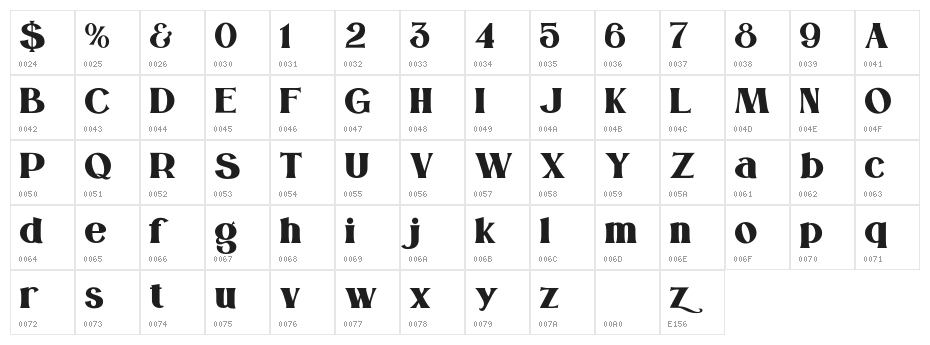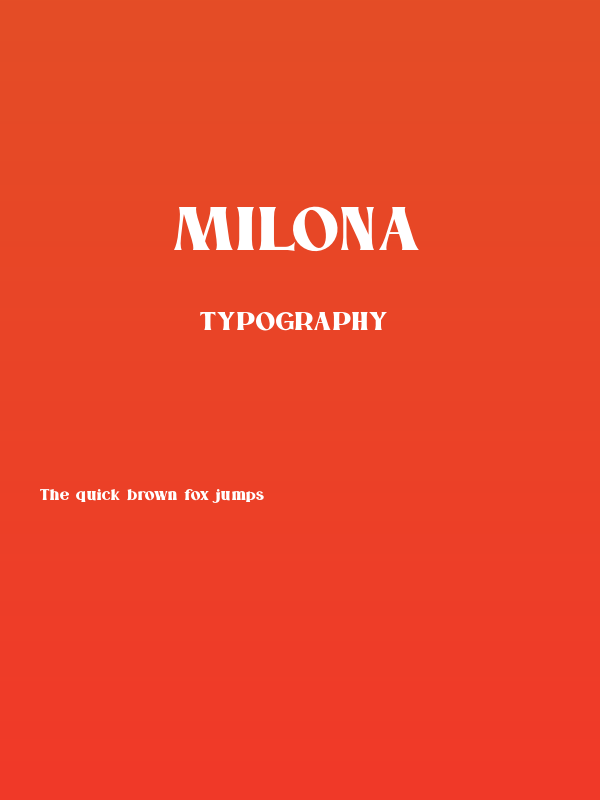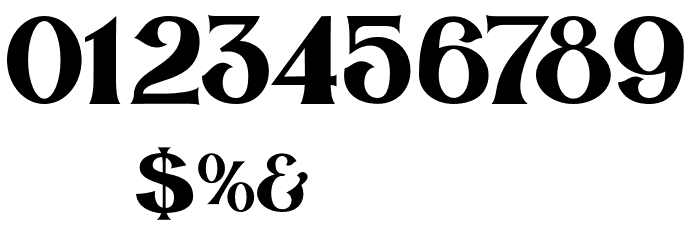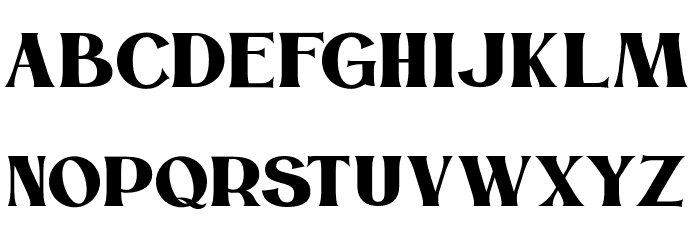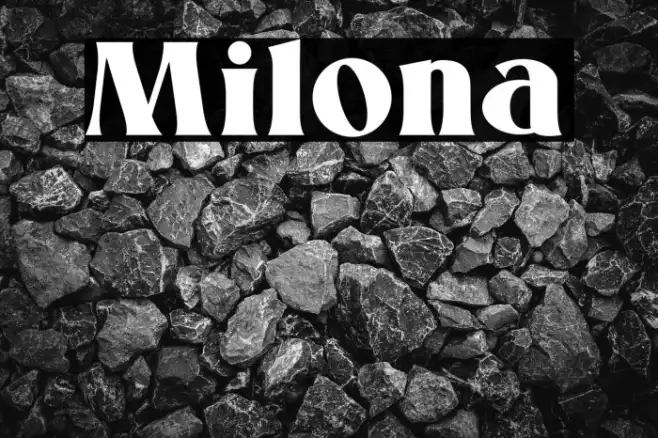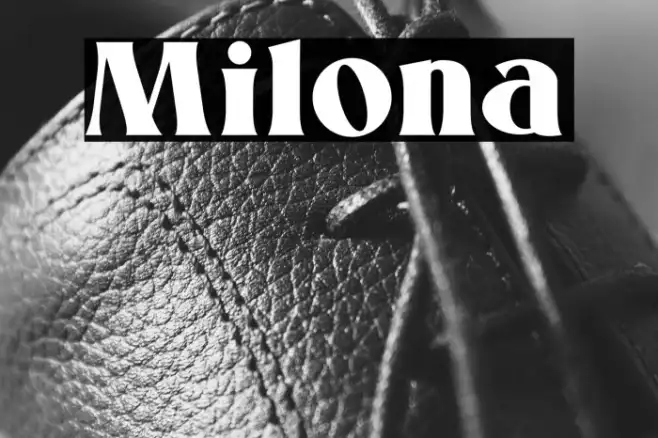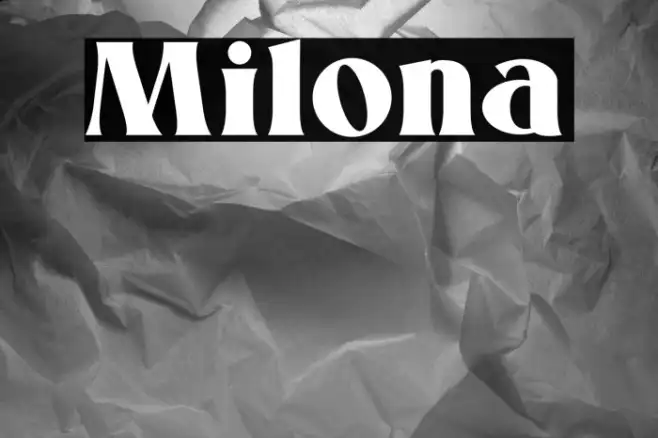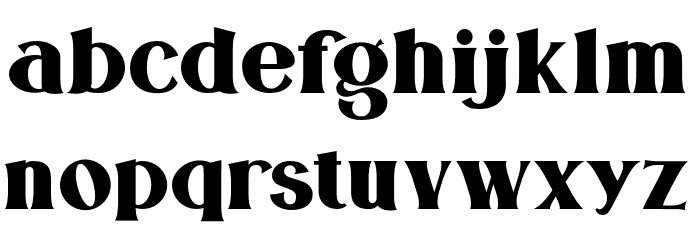
Milona Font
Milona Description
This font features a bold and dramatic style with high contrast between thick and thin strokes, giving it a striking appearance. The serifs are pronounced and angular, adding a sense of sophistication and elegance. The uppercase letters are particularly commanding, with a strong presence that demands attention. The lowercase letters maintain the boldness while offering a slightly softer edge, creating a balanced look. Numbers and special characters are designed with the same boldness, ensuring consistency across all elements. This font is ideal for making a statement and can be used to convey a sense of authority and style.
| Proposed Projects | Perfect for headlines, branding, posters, and editorial design where a strong, authoritative presence is desired. |